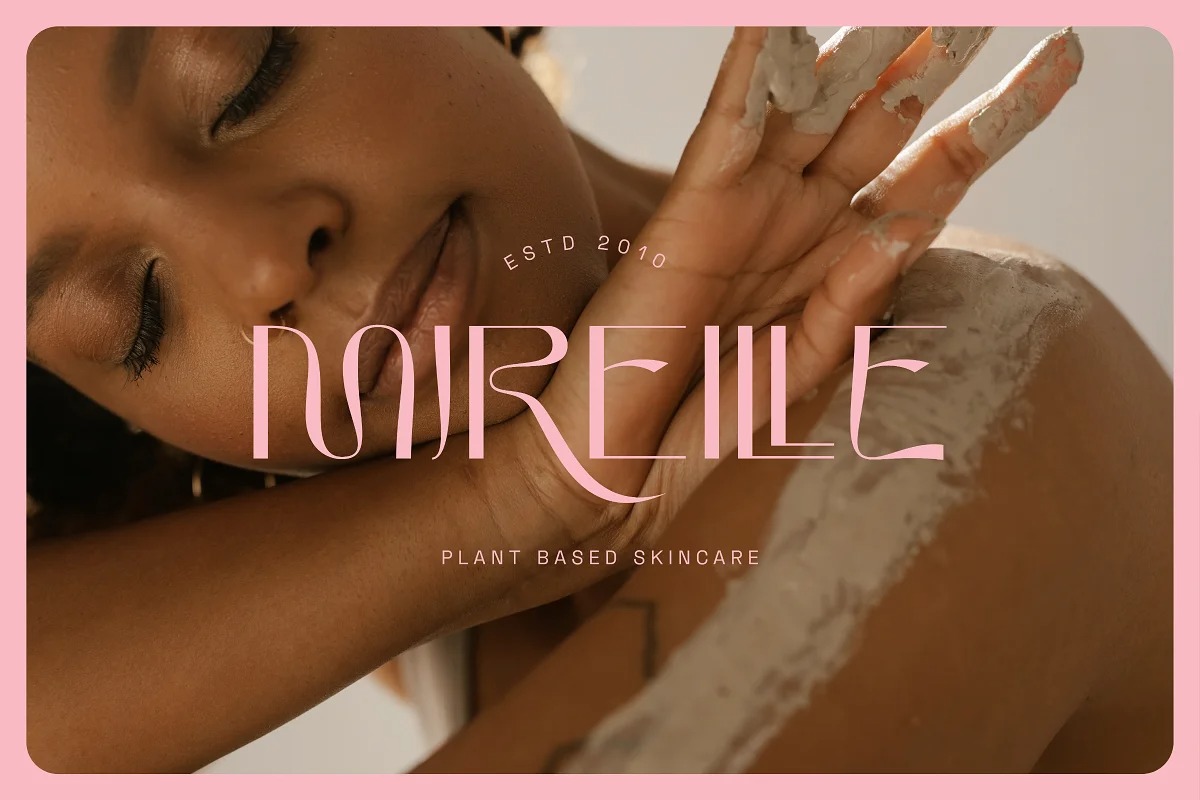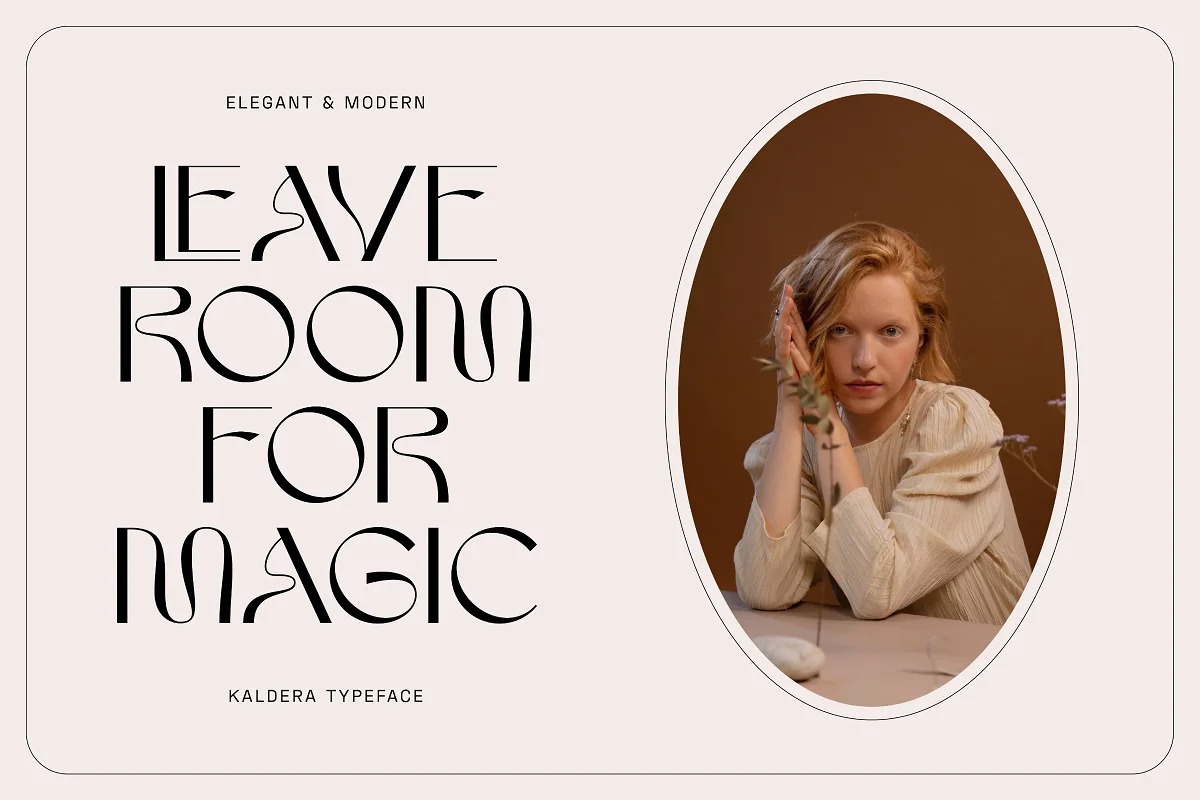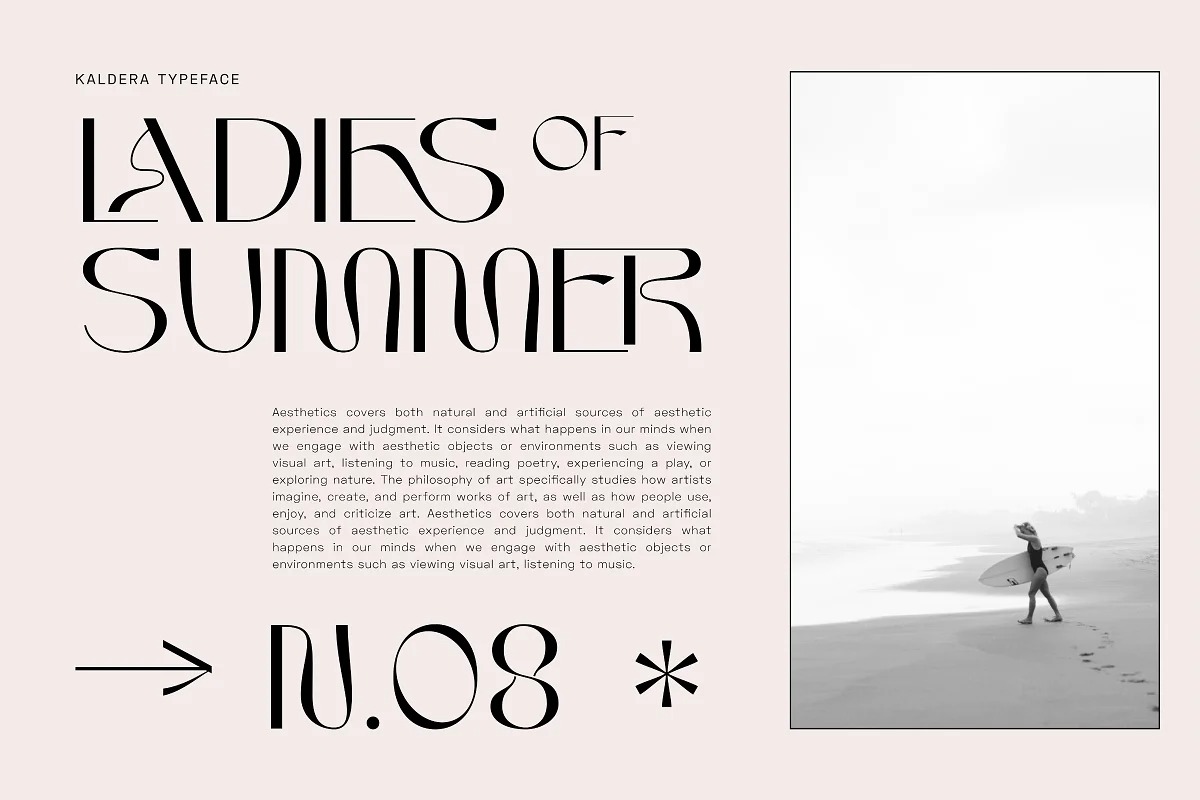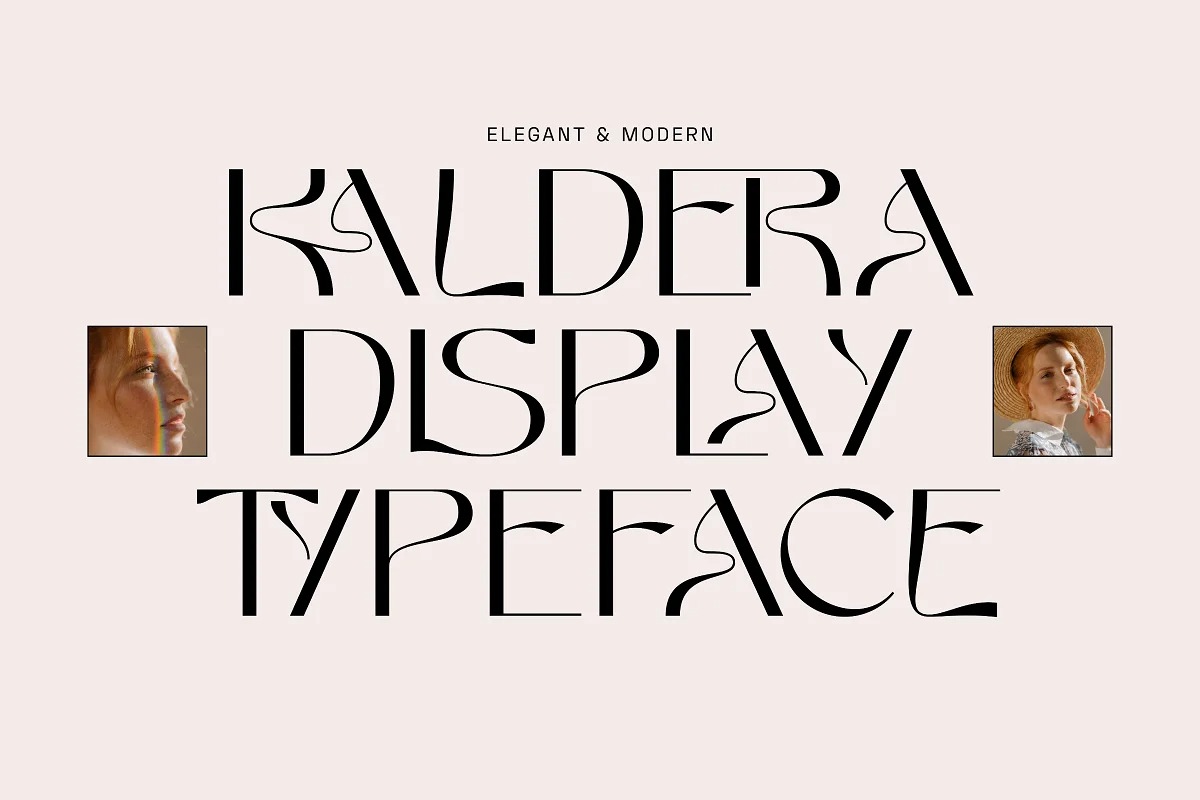
Kaldera Font
Kaldera Sans Serif Font
If you’re looking for a modern chic font to attract your audiences or customers then we’ve got the font for you! Belarost is designed in a very refined and modern style. by accessing many alternative fonts and their ligatures that will add to the perfection of each letter. This font is great for big headline text that grabs people’s attention. Perfectly suited for logos & branding, product packaging designs, advertising & marketing, and much more!